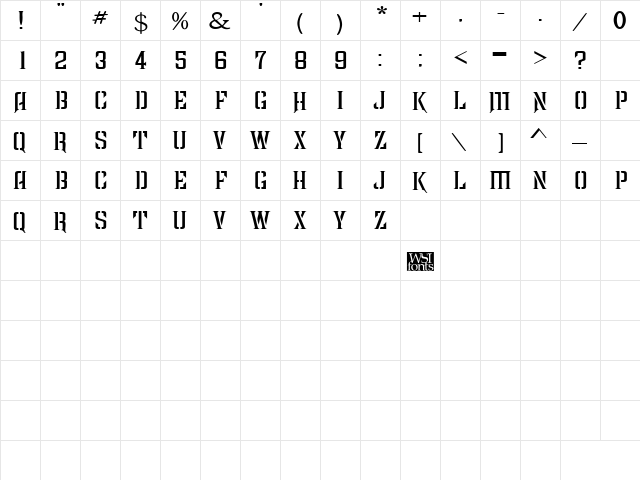
ManzanitaBroad Regular Font Preview
ManzanitaBroad Regular
Design Context for ManzanitaBroad Typeface
ManzanitaBroad is a composed and adaptable typeface that performs quietly and consistently across a wide range of design contexts.